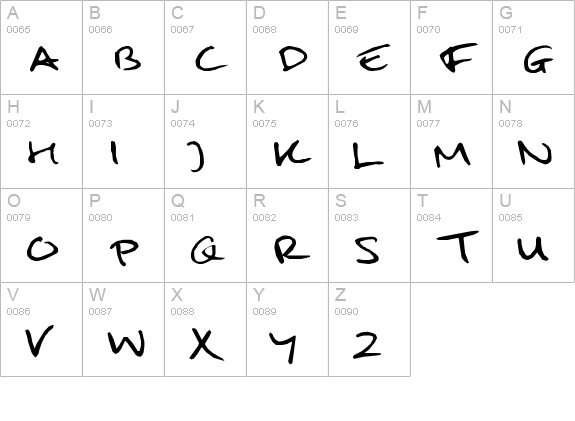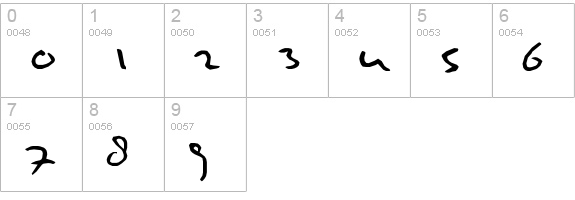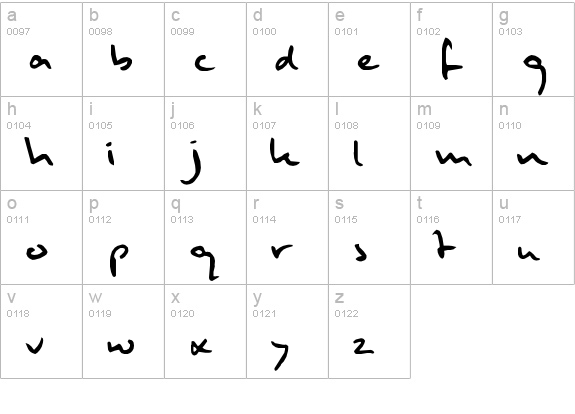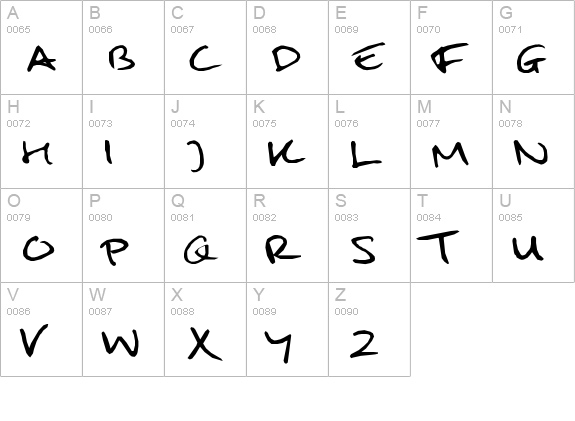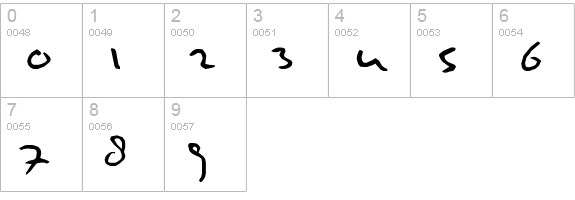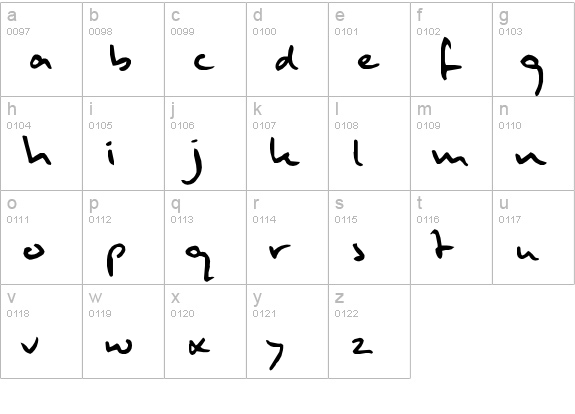
Mulder handwriting Font Details
Introducing Mulder Handwriting Font, a charming and versatile typeface that brings a touch of elegance to any project. This beautiful font features a unique hand-drawn style with flowing lines and graceful curves, making it perfect for adding a personal touch to invitations, logos, branding, and more. Mulder Handwriting Font is not only visually appealing but also incredibly easy to read, making it suitable for a wide range of applications. Whether you're designing a wedding invitation, creating a new logo for your business, or working on a creative project, this font is sure to make a lasting impression. Best of all, Mulder Handwriting Font is available for free download at FontsMarket.com. So go ahead and add this stunning font to your collection today and elevate your designs with its timeless elegance and charm.